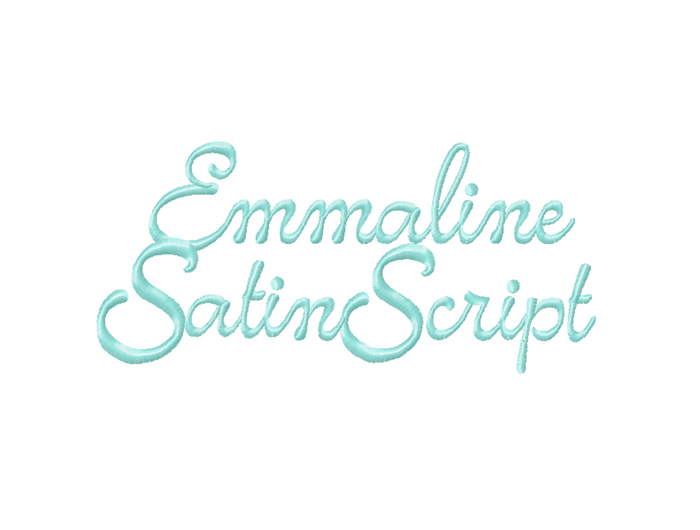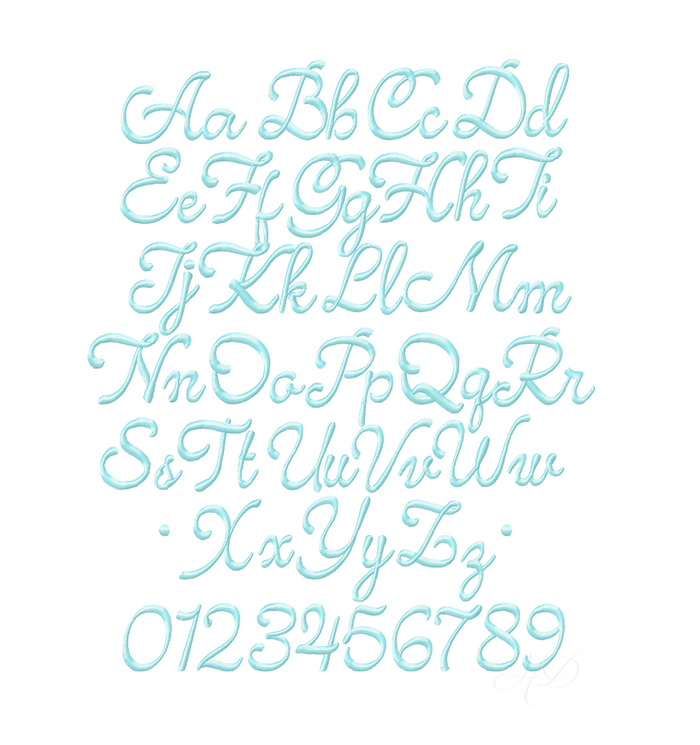
Emmaline Satin Script Embroidery Font
The Emmaline Satin Script Embroidery font is a single color satin stitch embroidery font including uppercase and lowercase letters A-Z as well as numbers 0-9 and an accent dot for dates.